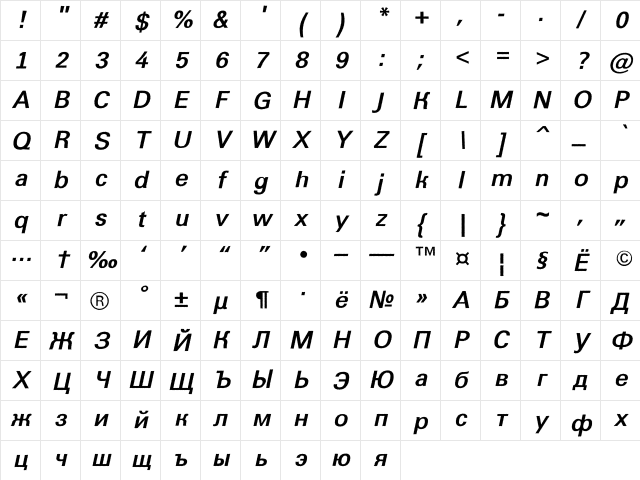
Complete a_GroticRoughObl Bold glyph index. Displaying only characters natively supported by a_GroticRoughObl Bold font.
a_GroticRoughObl embraces imperfection - its rough, textured character adds raw authenticity to designs that want to feel lived-in and unconventional.